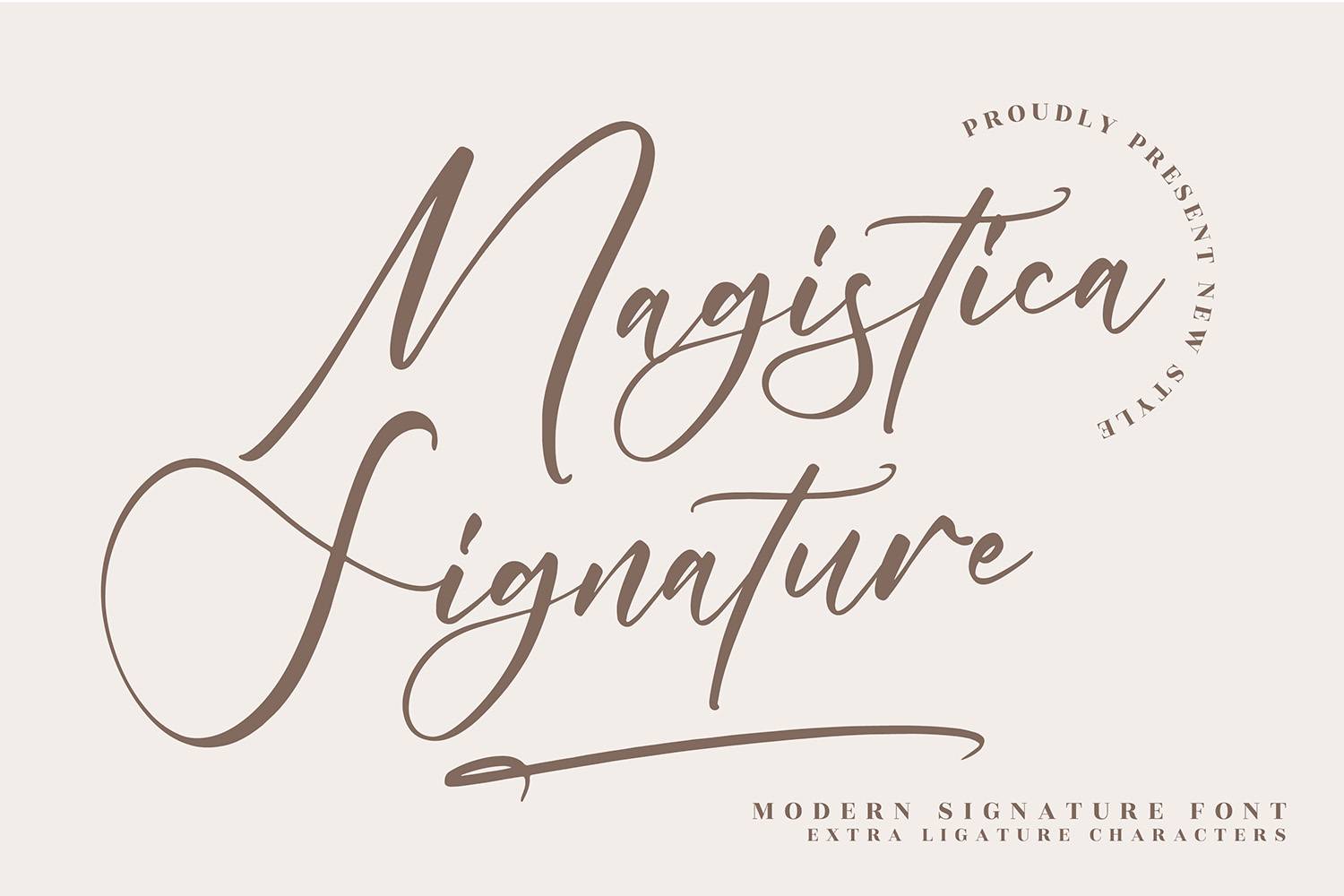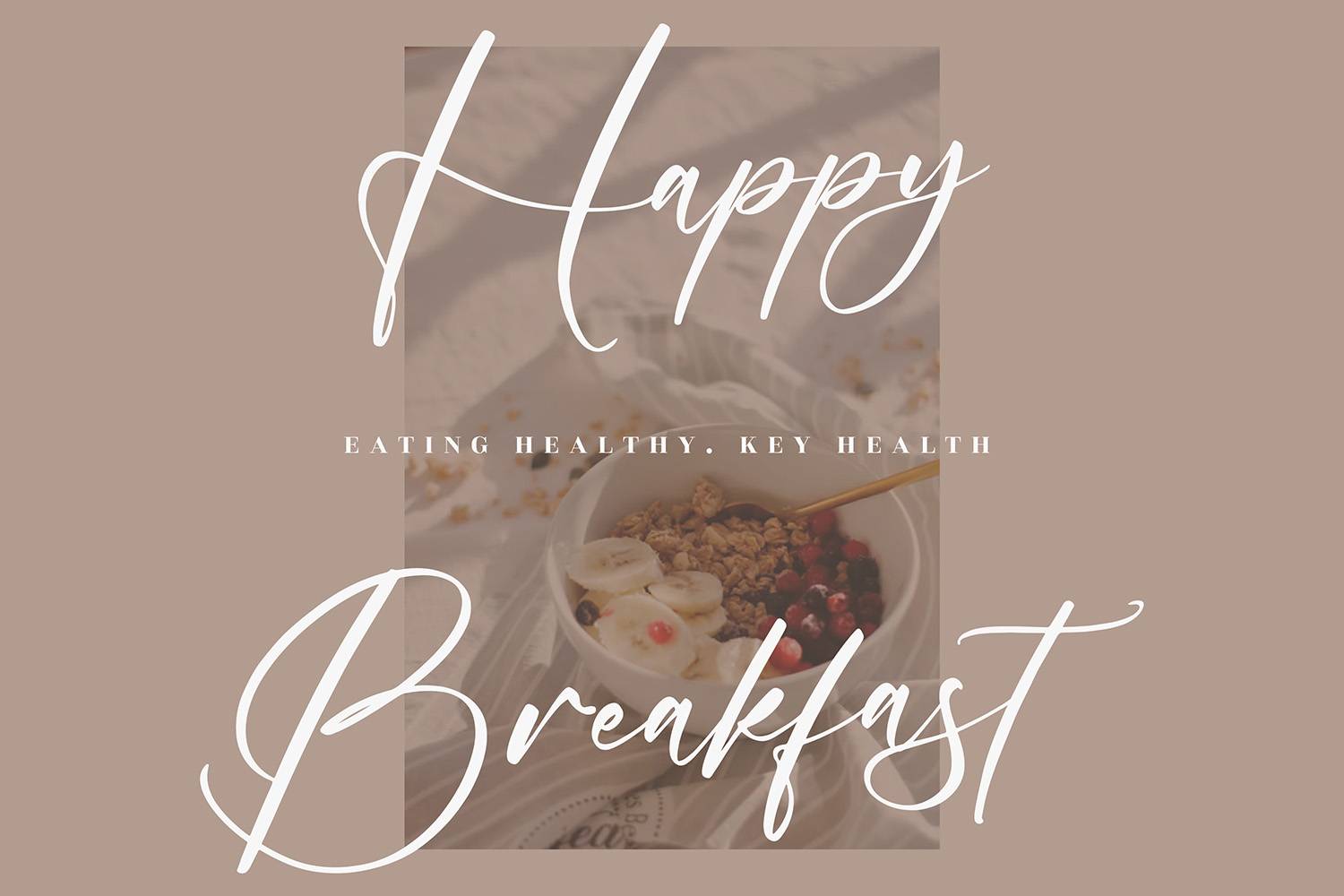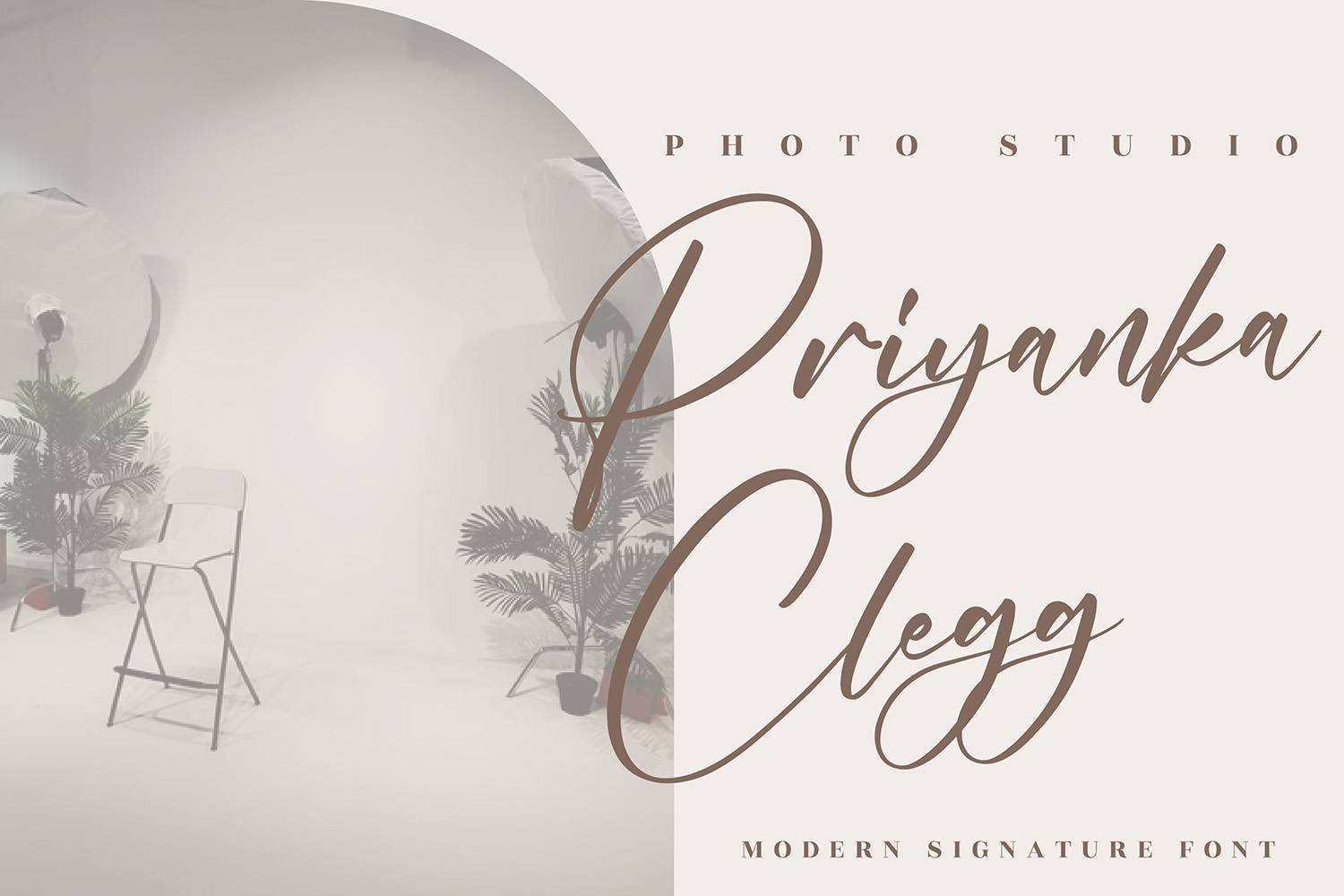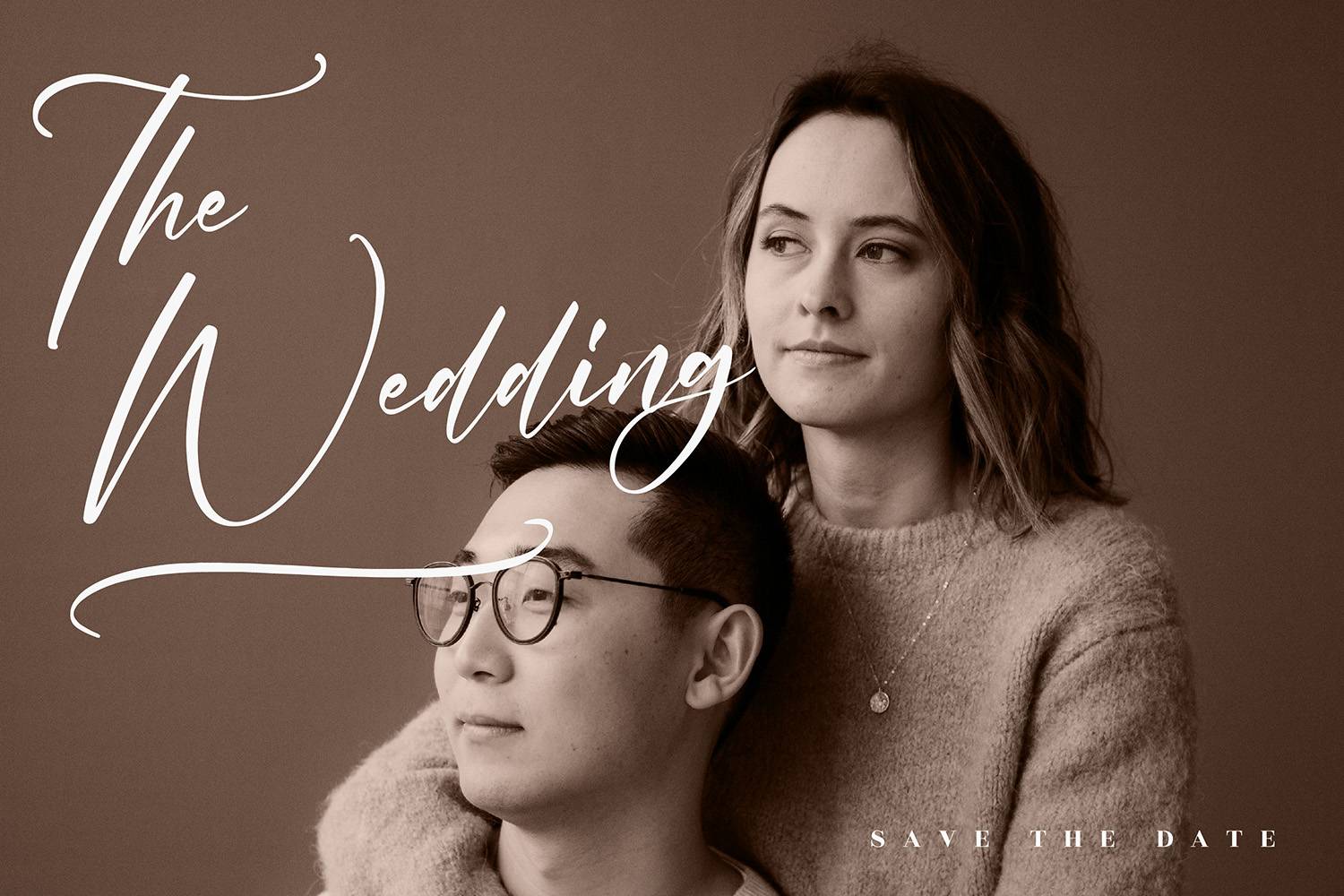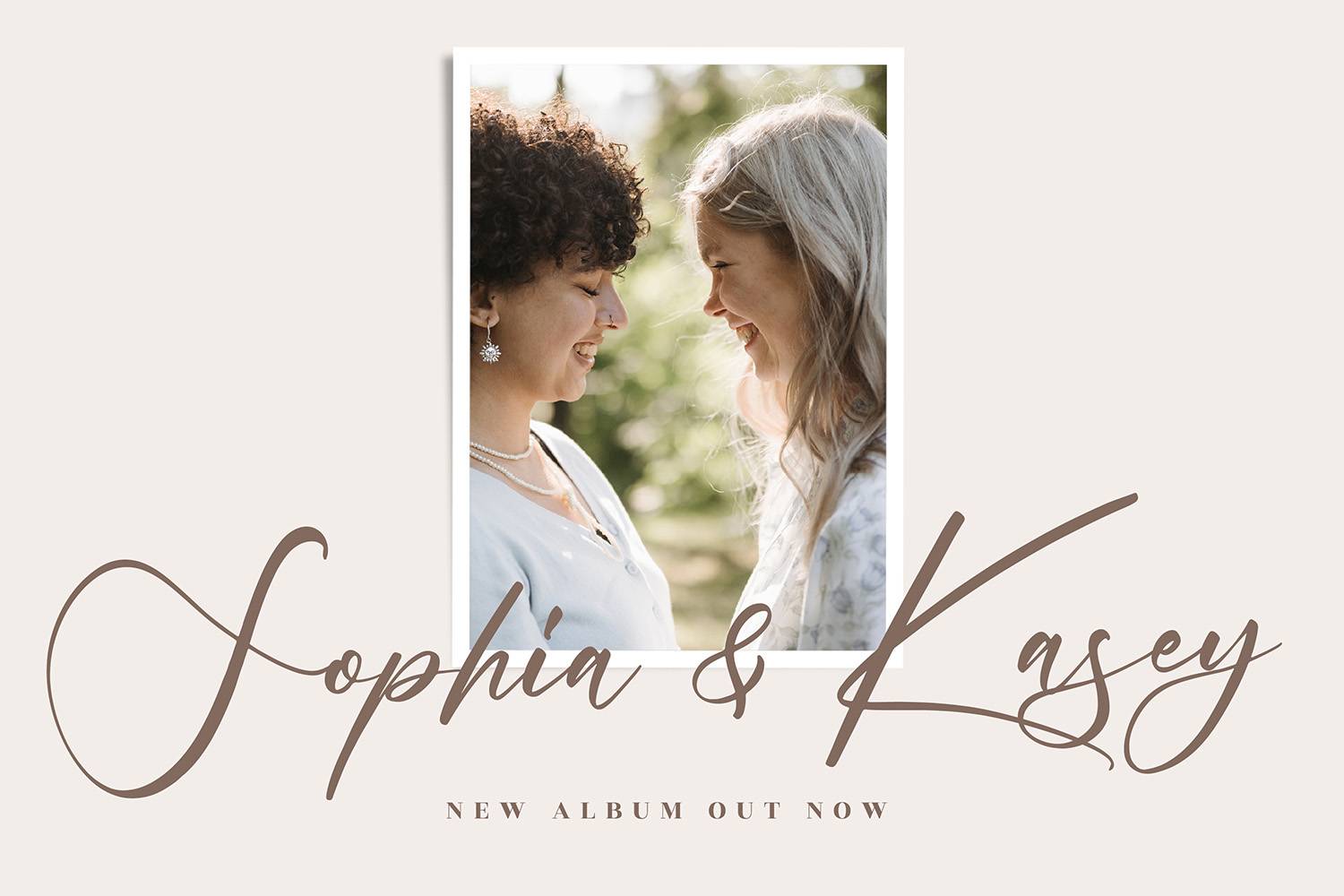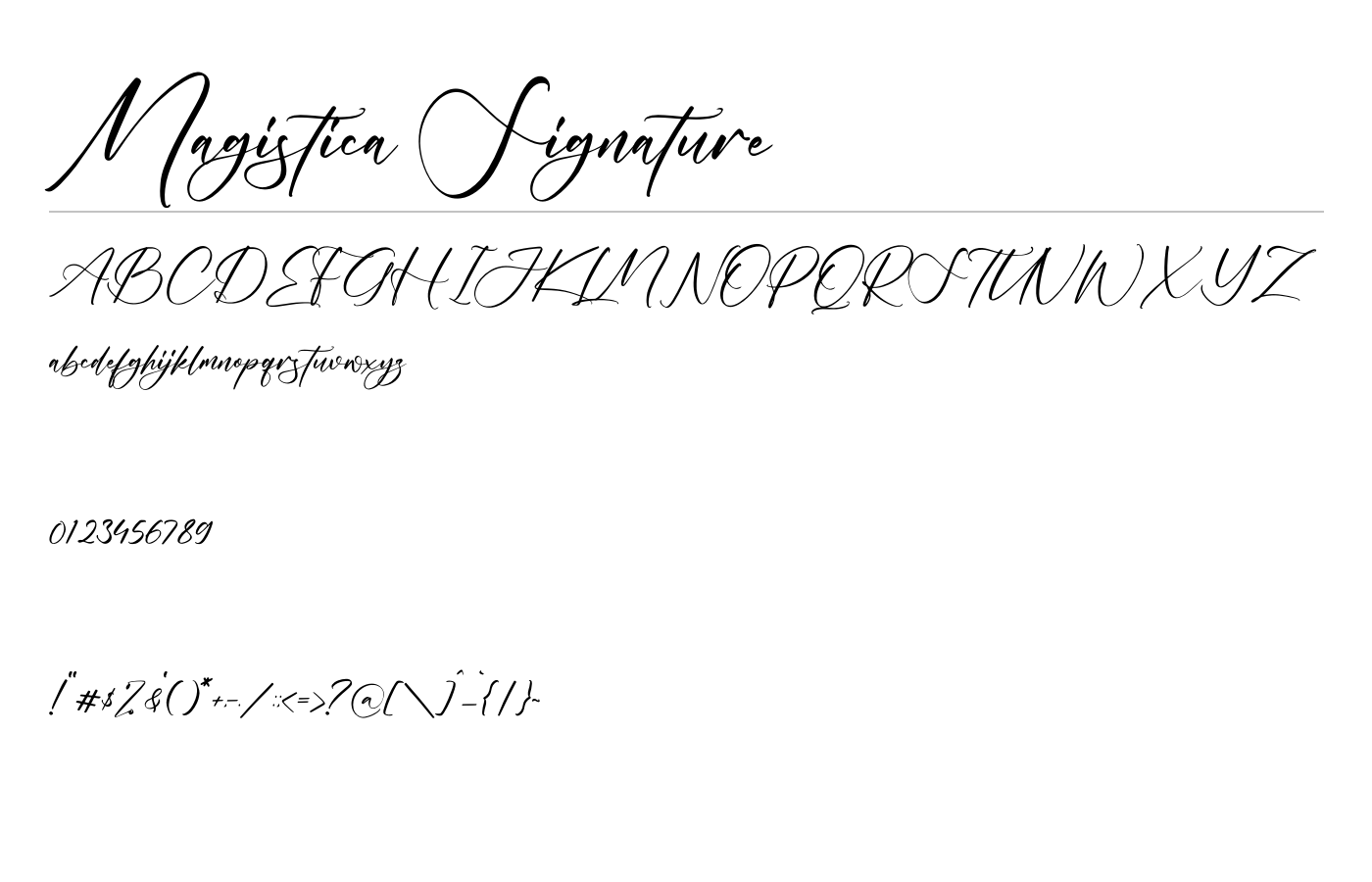
Magistica Signature is an elegant, flowing script font that mimics natural handwriting with its smooth, slender strokes and graceful curves. Its delicate, stylish letterforms convey a sense of sophistication and personal charm, making it perfect for luxury branding, wedding invitations, and fashion-related designs that require a refined, intimate touch. This font works especially well in logos and headlines where a signature-like, artistic flair is desired.
Magistica Signature Font
About Magistica Signature Font